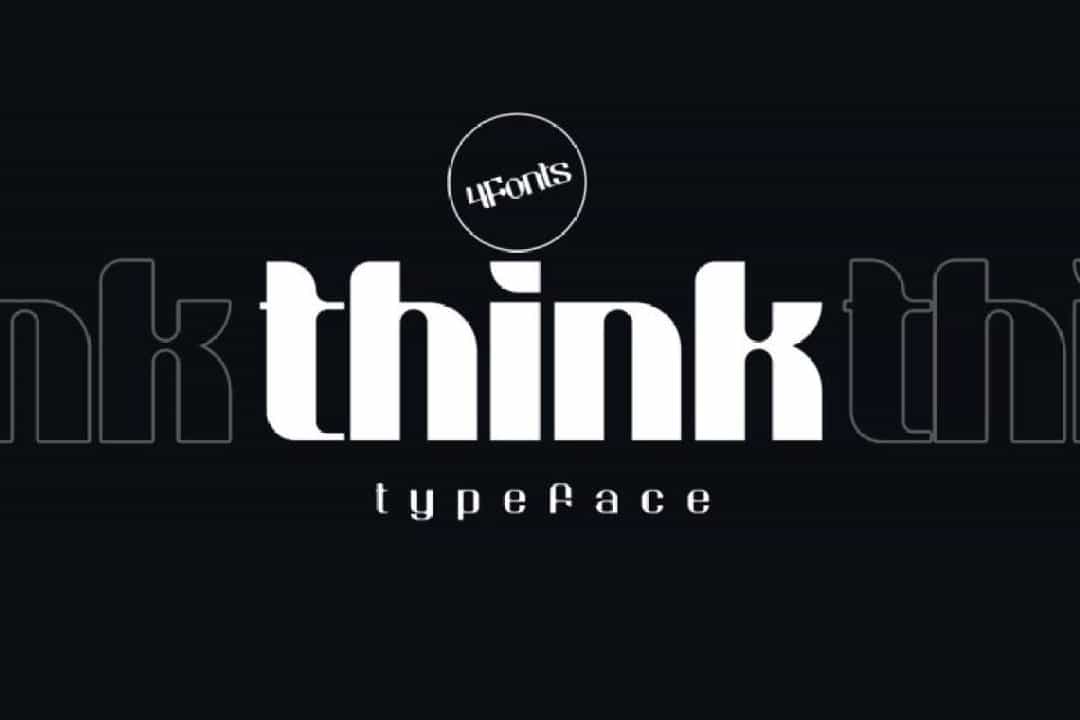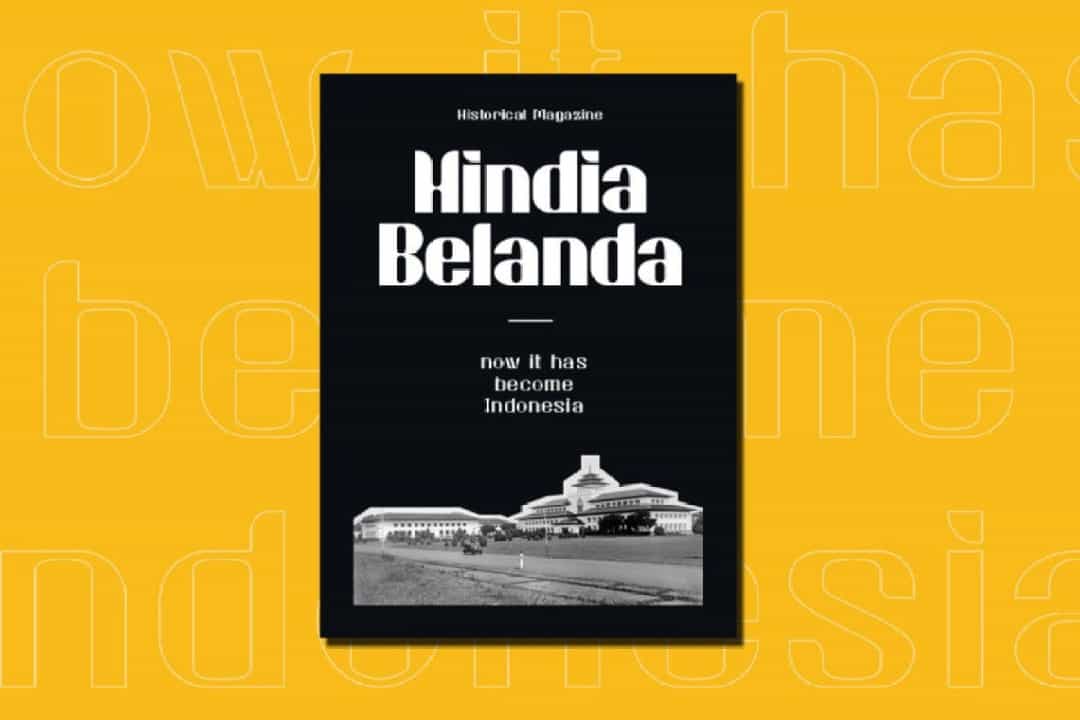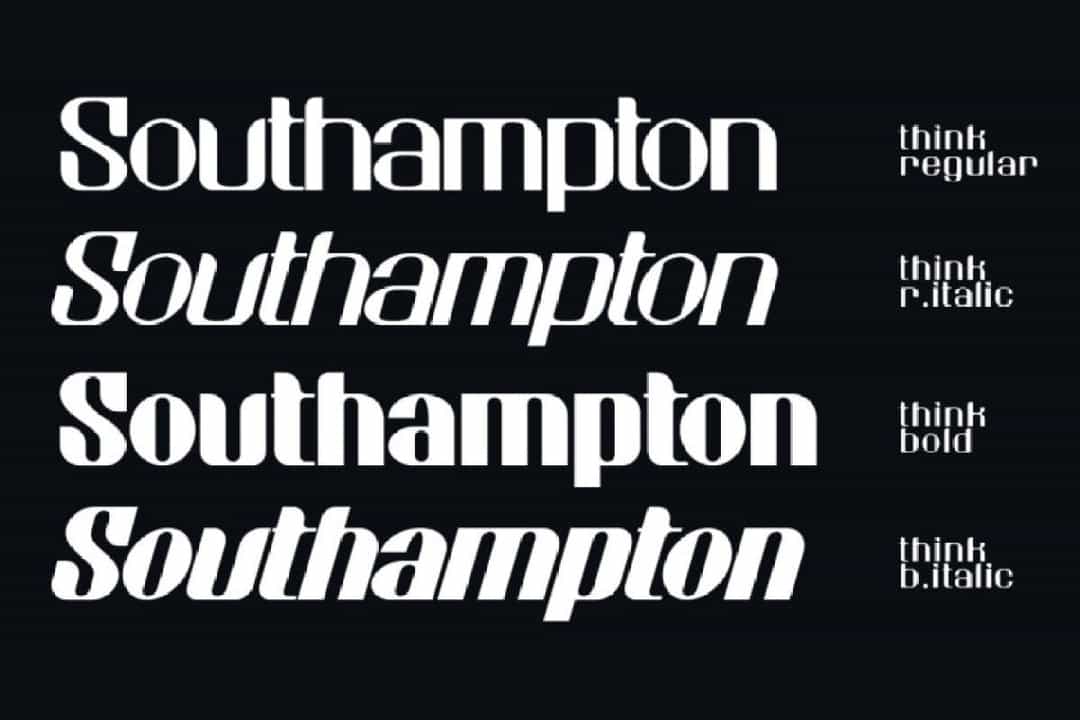
“Think” is a sleek solid and extended sans serif display typeface. It is a distinct elegant feel that will help you convey attention to your designs projects.Think Font is perfect for branding, designing display photos for your social networks, creating striking quotes and much more.